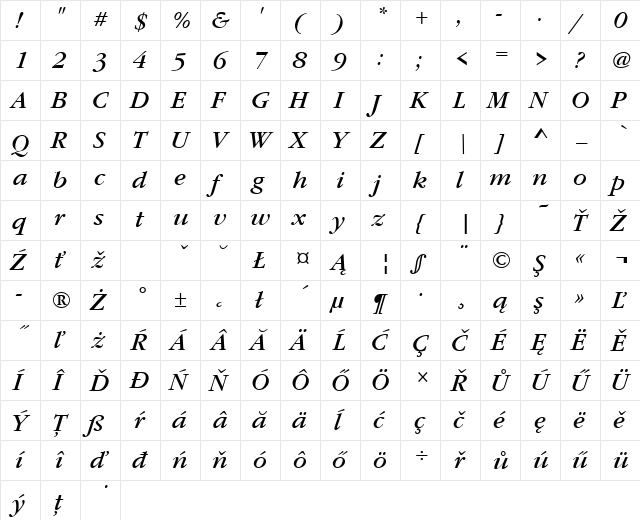
GaramondItcTEE Italic
Design Context for GaramondItcTEE Typeface
GaramondItcTEE is a composed and adaptable typeface that performs quietly and consistently across a wide range of design contexts. Its italic angle brings a sense of urgency and motion to the letterforms.
Pro Tip: Try GaramondItcTEE for annotation and caption copy alongside an upright companion — the contrast in angle creates a dynamic but ordered typographic system.